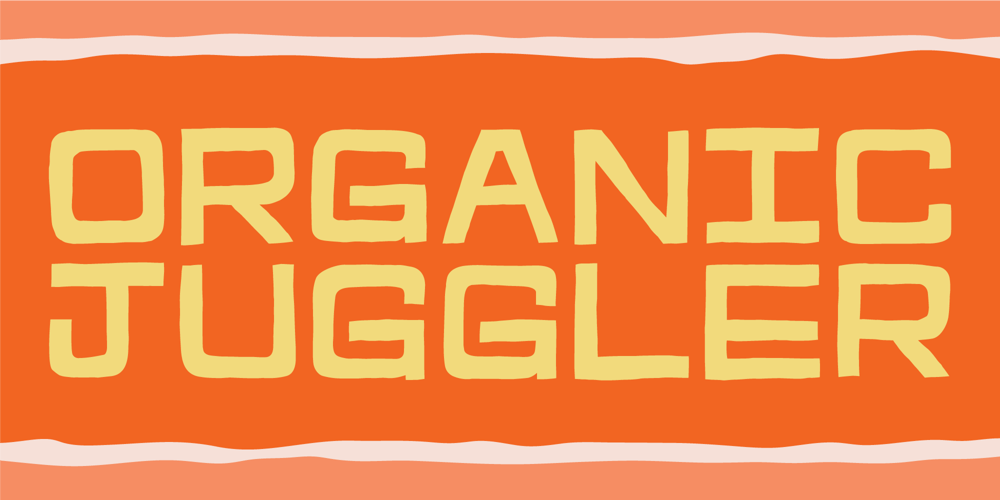
Organic Juggler Font Family was designed by Jakob Fischer and published by Bogstav. Organic Juggler contains 2 styles and family package options. I did my best to make the letters in Organic Juggler to appear vibrant and lively in an organic way, although it’s a monospaced font. I’ve added 6 slightly different letters for you to choose from, and they automatically cycle as you type, or you can manually select them from the glyph menu.